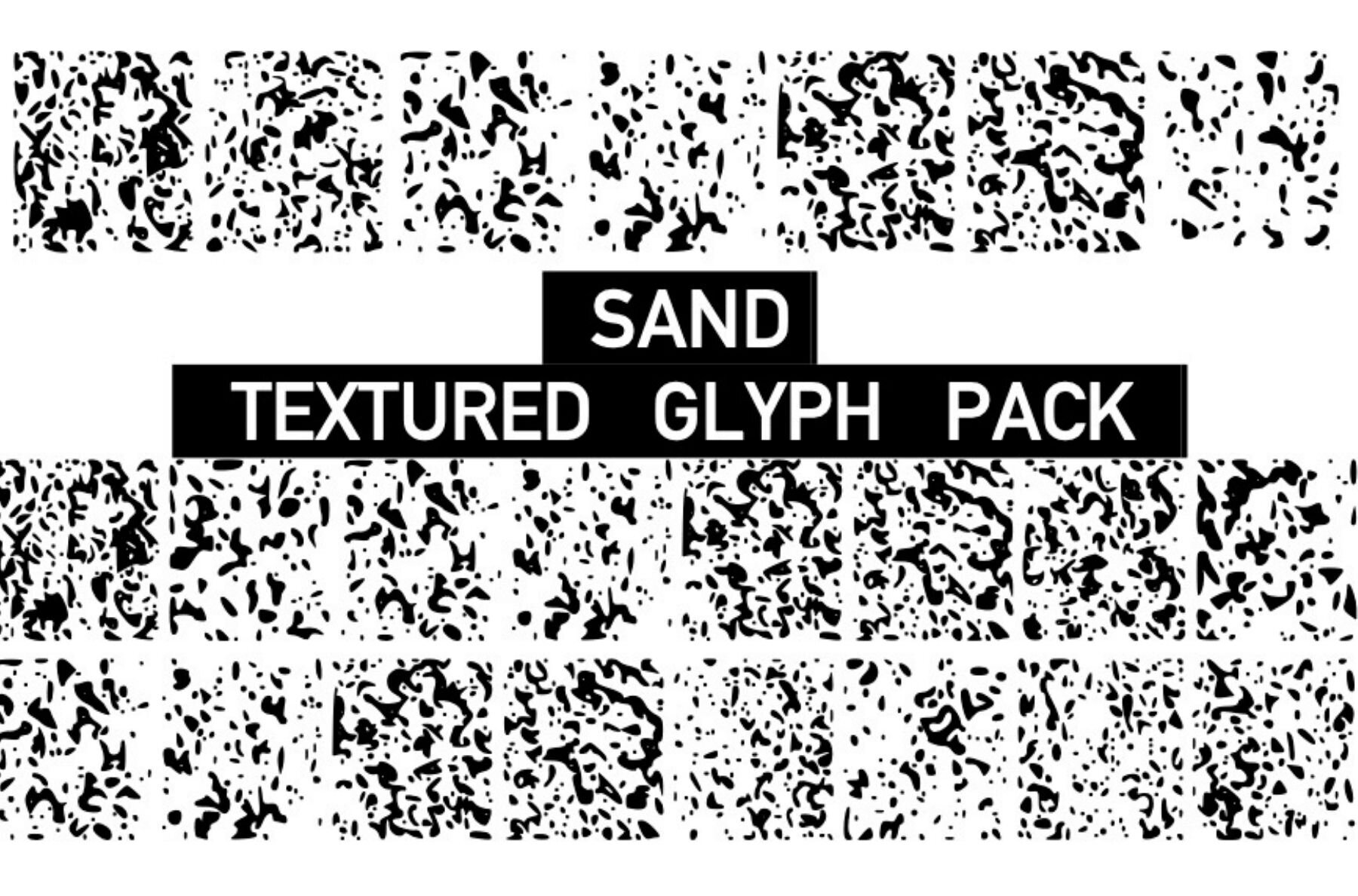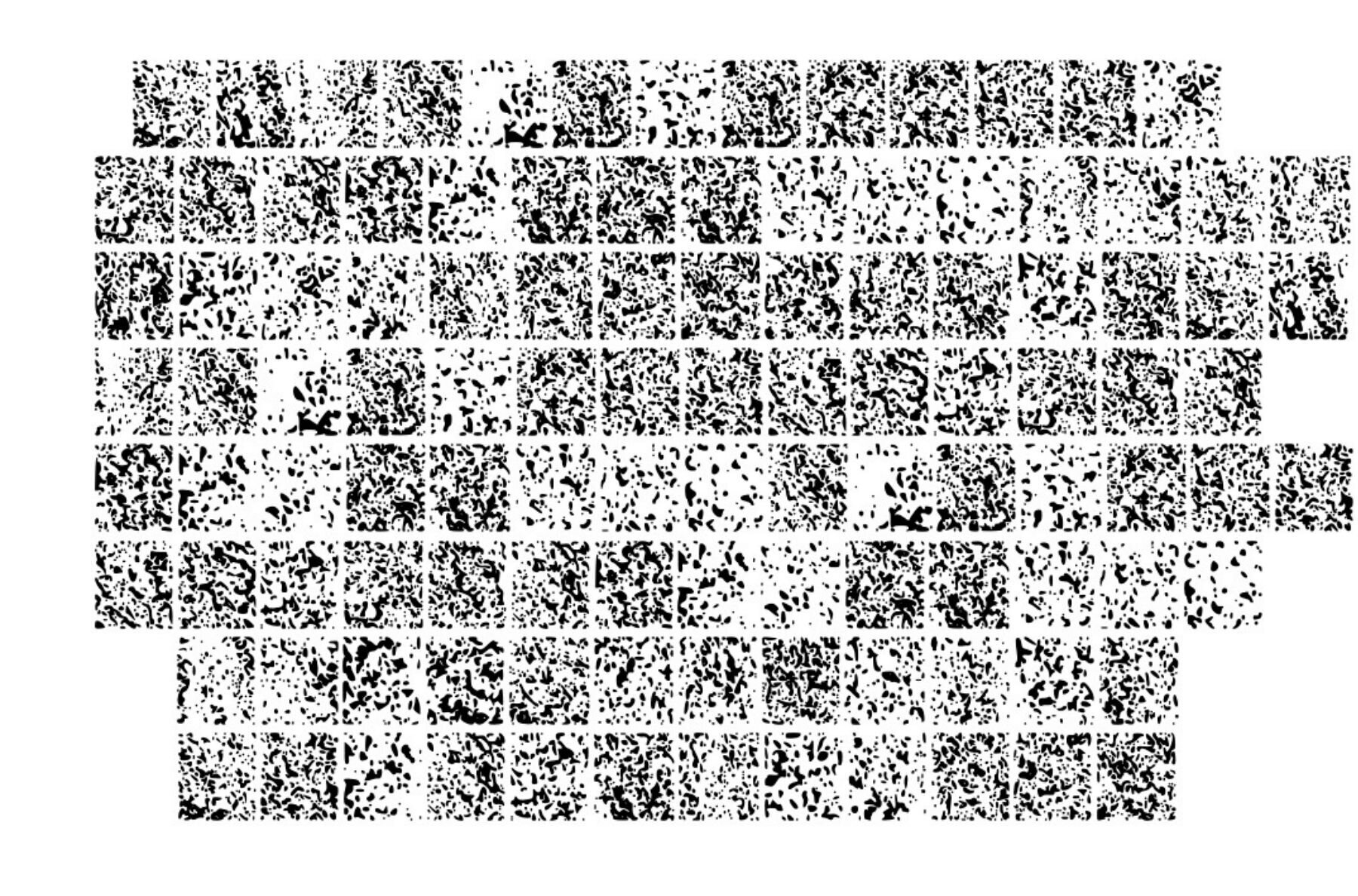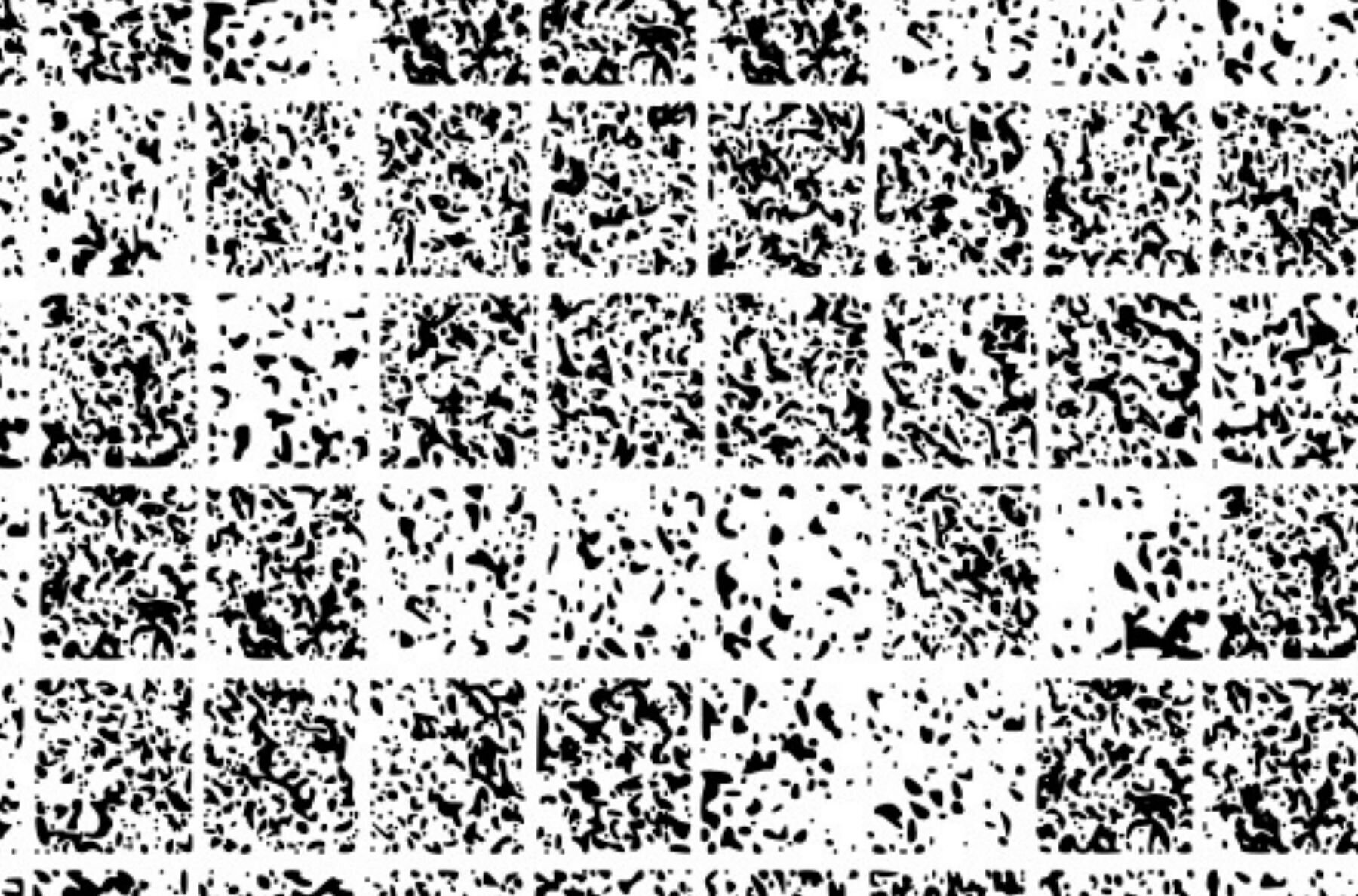
Texture Sand Font
Texture Sand Regular
Introducing Texture Sand, a unique collection of sand-textured glyphs designed to elevate your creative projects. This extensive pack brings the essence of scattered sand particles, adding a touch of nature to your designs. Ideal for infusing an organic feel into graphic, digital, or craft projects.Texture Sand: Sand Textured Glyphs